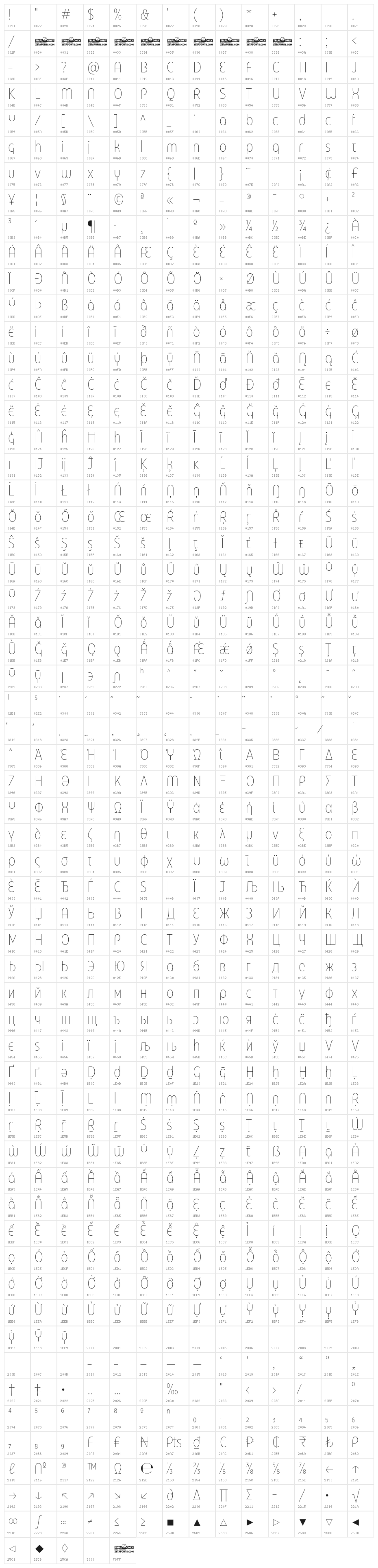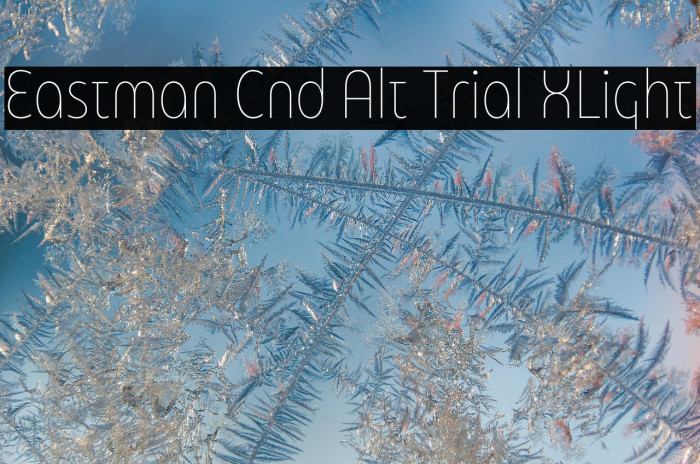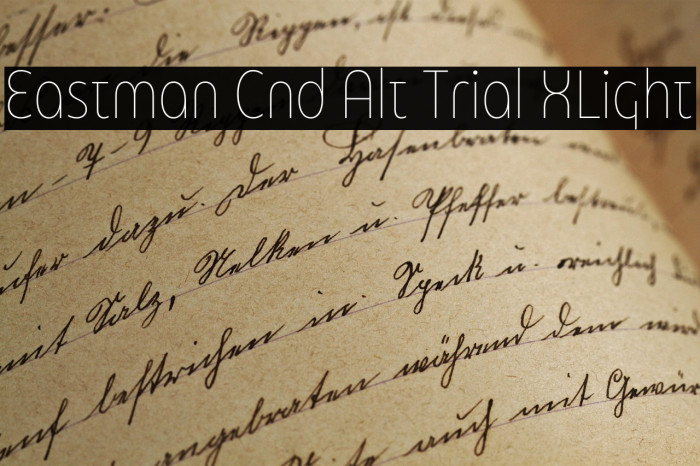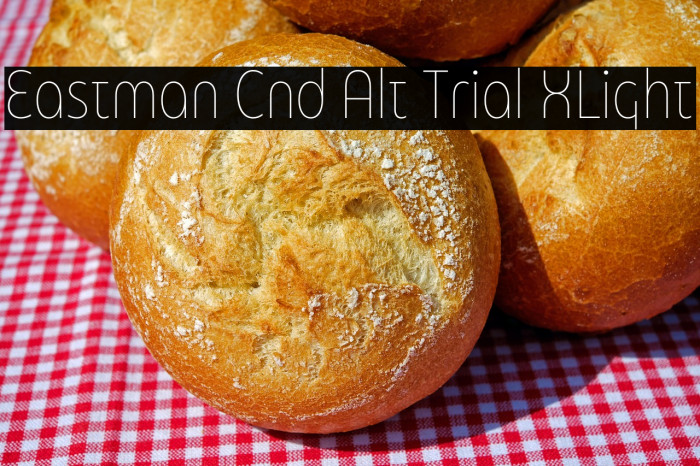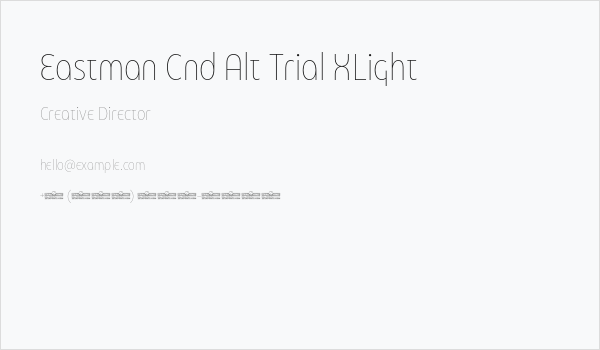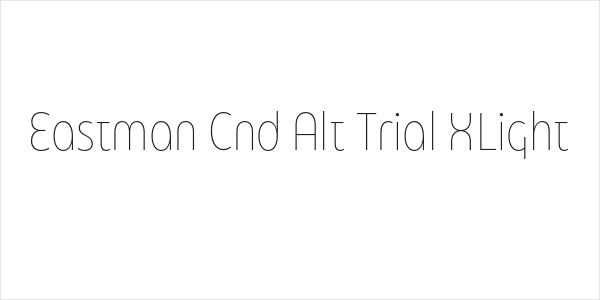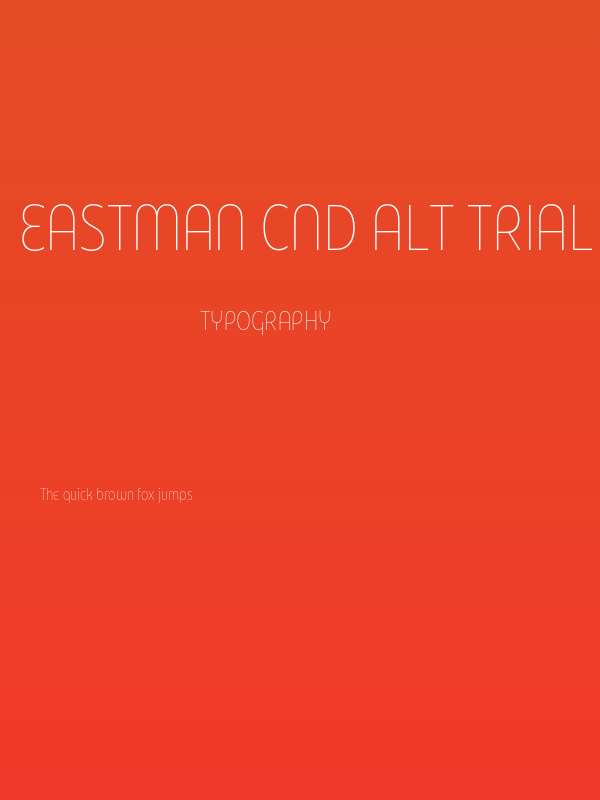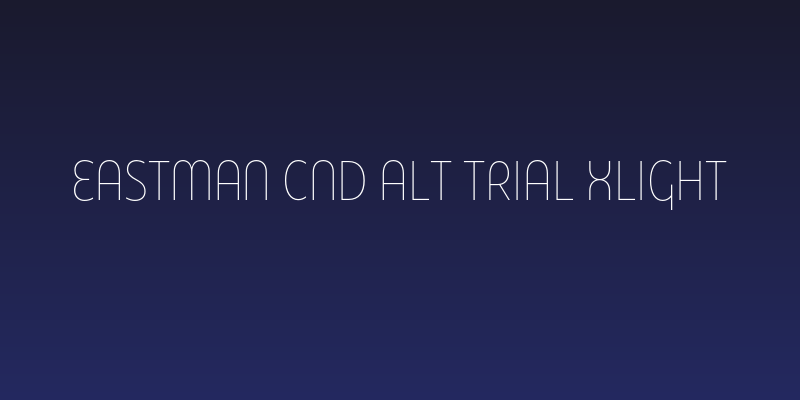
Eastman Cnd Alt Trial XLight Font
Eastman Cnd Alt Trial XLight Description
This typeface features a sleek, modern design with a condensed structure that emphasizes verticality and elegance. The characters are crafted with thin, uniform strokes, offering a minimalist aesthetic that is both sophisticated and versatile. The uppercase and lowercase letters maintain a consistent height, contributing to a clean and orderly appearance. The font's geometric shapes and straight lines create a sense of precision and clarity, making it suitable for contemporary design projects. The numerals and special characters are designed to complement the alphabet, maintaining the same thin and refined style. Overall, this typeface exudes a sense of modernity and professionalism, ideal for projects that require a touch of elegance and simplicity.
| Use Case | Headlines, Logos, Digital interfaces |
| Proposed Projects | Ideal for branding, editorial design, advertising, and digital interfaces where a modern and elegant look is desired. |